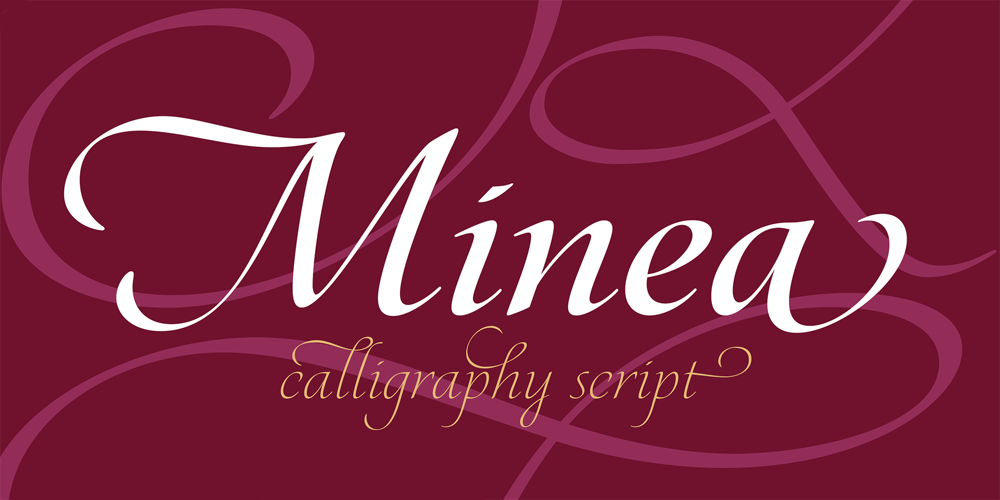
Minea Font Family was designed by Biljana Stankovic and published by Bistatype. Minea contains 6 styles and family package options. A characteristic of the Minea font family is the achievement of the calligraphic handwriting effect. In addition to basic, simple letter forms, it contains a large number of additional stylistic alternatives and ligatures that, by combining and changing without repetition, give the effect of calligraphic writing. Some of these characters can be changed by automatically turning on a particular OpenType function, when ligatures replace the combination of letters that are part of them, the letter is replaced by a certain alternative when found in a given context, and capital letters are replaced with decorative initials.Letter swap functions can be used in all programs that support OpenType programming. Minea is an attractive font that is sleek, clean, feminine, sensual, glamorous, simple and very easy to read.The Minea font family, based on original calligraphic sketches, contains a total of six weights.Thin, regular and medium weights have ligatures and alternate letter shapes, which help make the syllable look like an authentic calligraphic print.Semi-bold, bold, and black weights contain only basic letter shapes.The font family contains Latin and Cyrillic. Includes Russian and Serbian alternative letter forms. The family of calligraphic fonts Minea can be used on various occasions, and is intended for use in print and online.Can be used in the realization of certain tasks, unusual advertisements, packaging and invitations, diplomas … as well as for all purposes where this type of letter is needed.